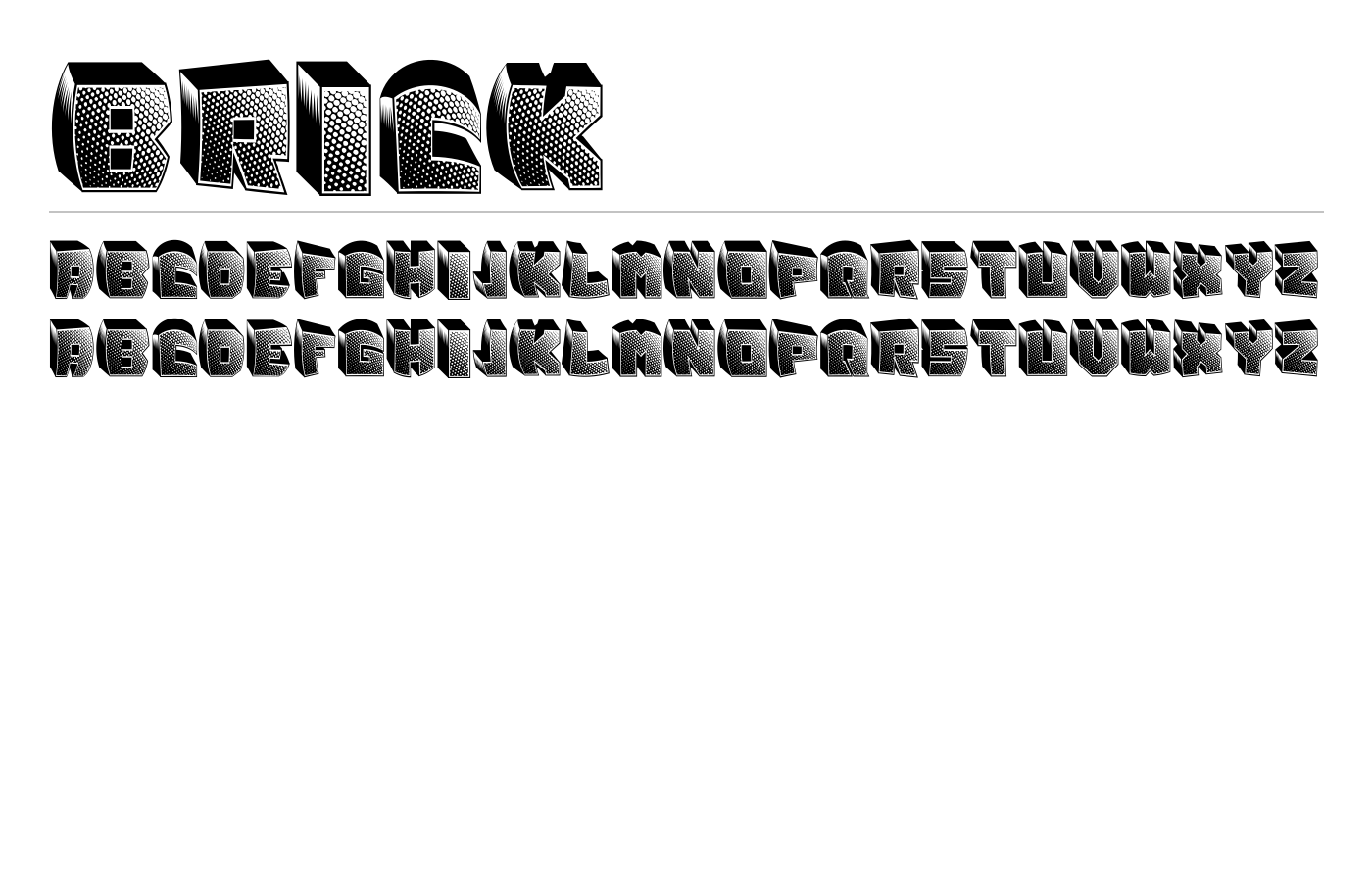
Brick Font is a bold, decorative sans serif with a strong 3D effect that creates a textured, block-like appearance reminiscent of building bricks. Its heavy weight, condensed width, and high contrast shading with dot patterns give it a playful yet sturdy personality, making it ideal for eye-catching headlines, posters, and branding that demands a sense of strength and fun. This font works best in display settings where its unique style can stand out without sacrificing legibility.
Brick Font
About Brick Font
| Font family | Brick Font |
| Category | Slab-serif |